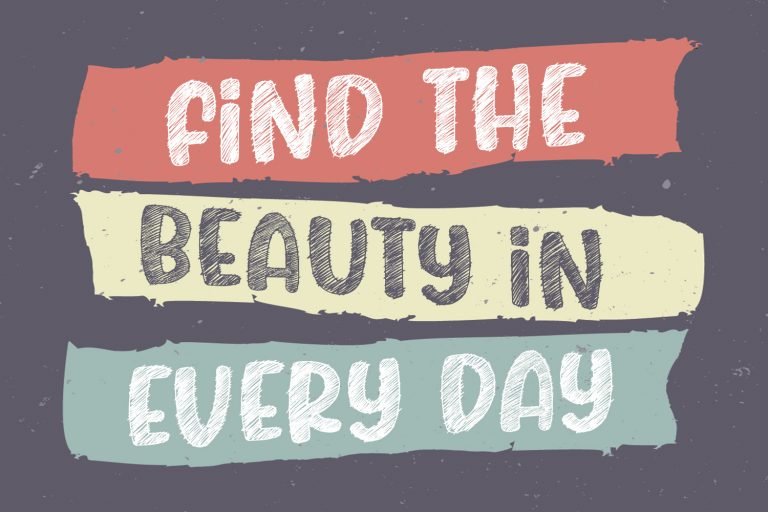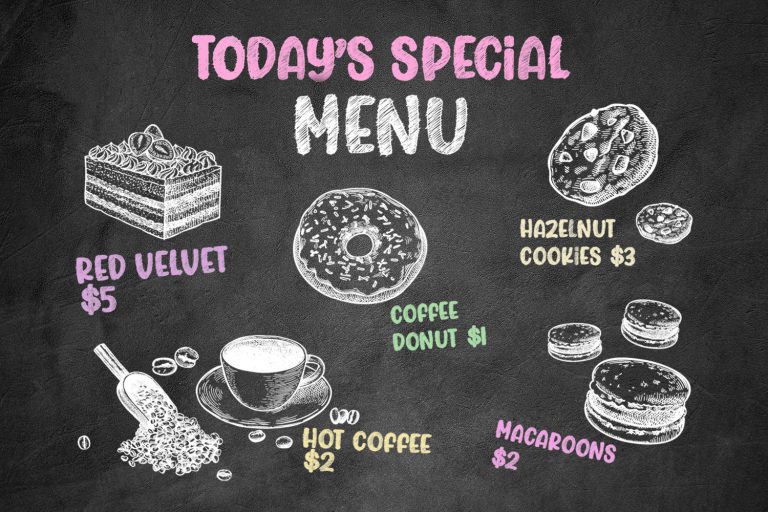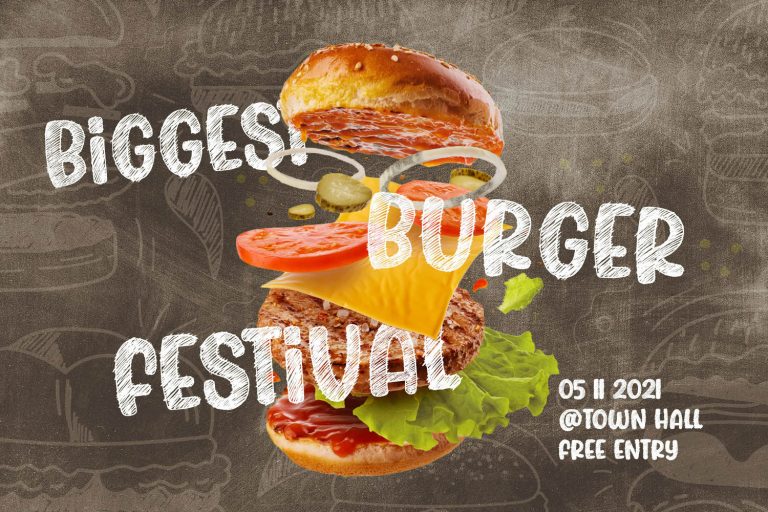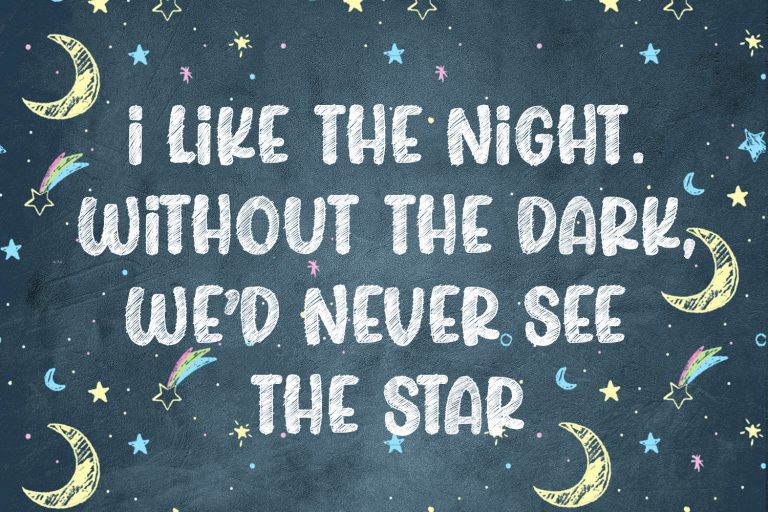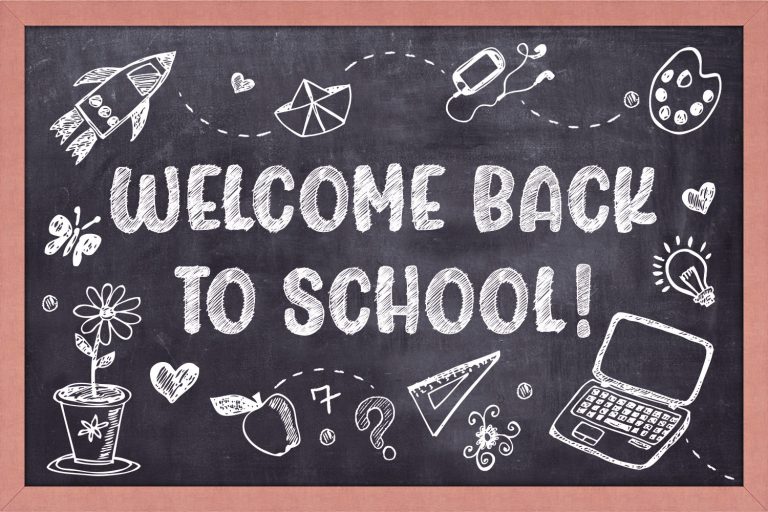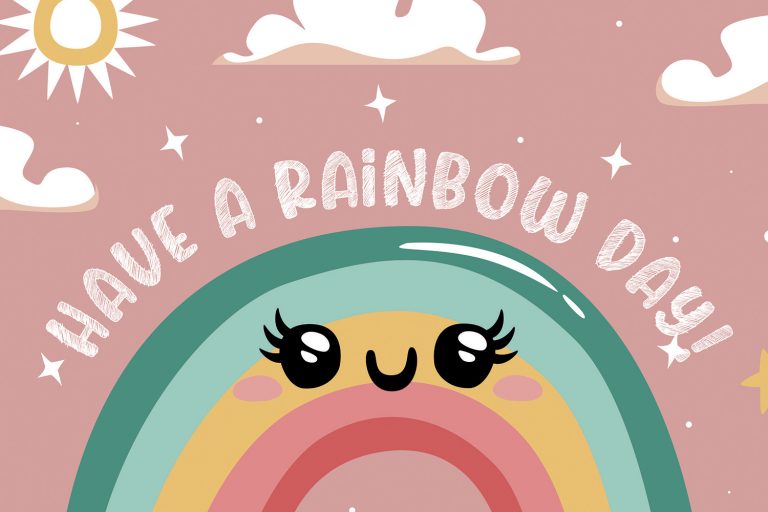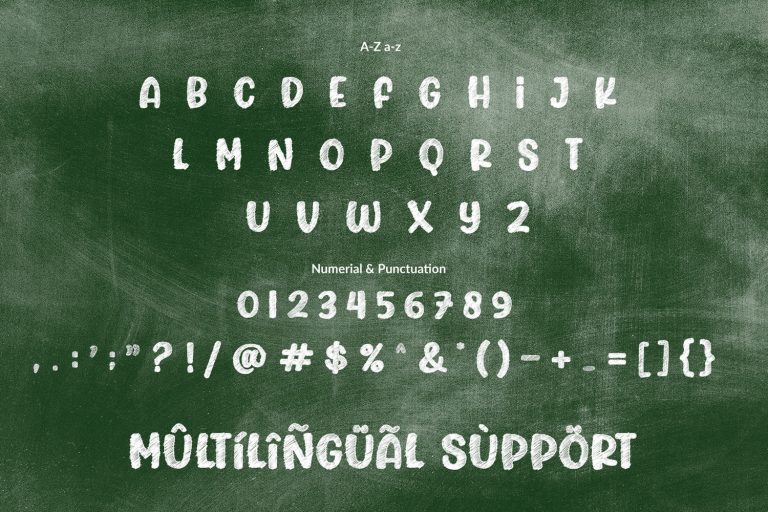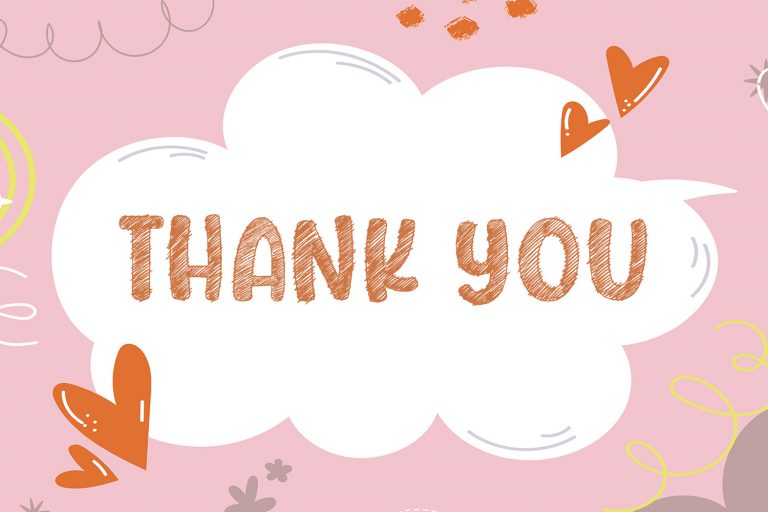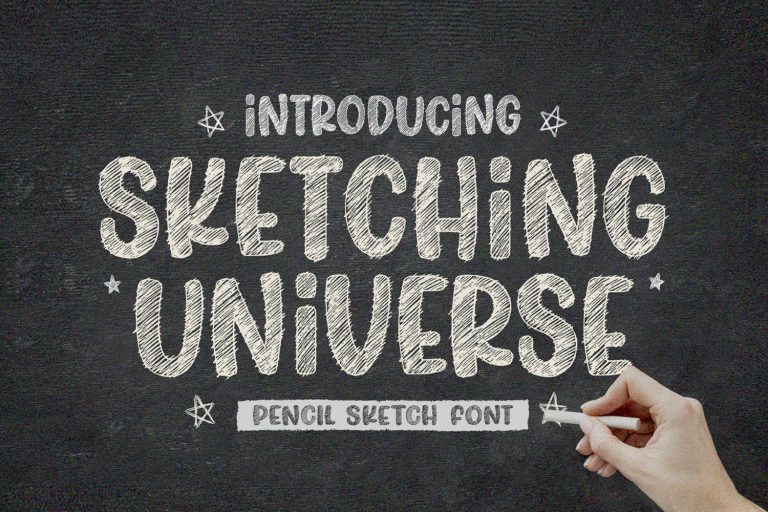
- Sketching Universe – Pencil Sketch Font
Sketching Universe
The quick brown fox jumps over the lazy dog
Sketching Universe is a cute, bubbly and friendly outlined display font. Its a pencil sketch font style. Feel natural and unique style makes
it incredibly fitting for a large pool of designs. Have fun with this beautiful font and explore its endless variations.